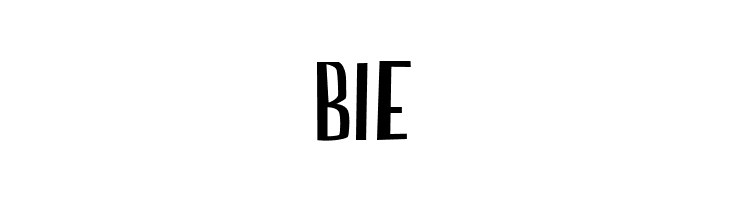
Anderson Four Feather Falls Font
Font by Steve Ferrera
A bold, decorative font with intricate Western-inspired details.
New Wishes Font
Font by
BoldFonts
A bold, cursive font with elegant loops and a handwritten style.
Chippewa Falls NF Font
Font by Nick Curtis - www.nicksfonts.com
A bold, geometric font with Art Deco influences, perfect for striking headlines and branding.
Swallow Falls Font
A bold, modern font with tall, narrow characters and sharp edges.
Badger Fatboy CTBT Font
A bold, chunky, and playful font with irregular, artistic character shapes.
Swallow Falls Italic Font
A dynamic italic font with tall, narrow characters and a modern style.
Radiator Falls Font
Chequered Ink - chequered.ink/
A playful, interconnected script font with rounded edges and smooth curves.
Lanitos Falls Font
An elegant, flowing script font with smooth, cursive letterforms.